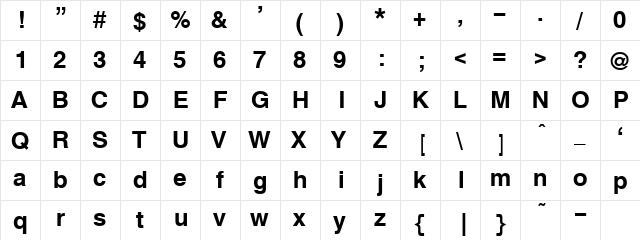
TxFntB14 Regular
Design Context for TxFntB14 Typeface
TxFntB14 is a composed and adaptable typeface that performs quietly and consistently across a wide range of design contexts.
Pro Tip: Pair TxFntB14 with a font of contrasting weight or personality to build a more expressive typographic hierarchy.